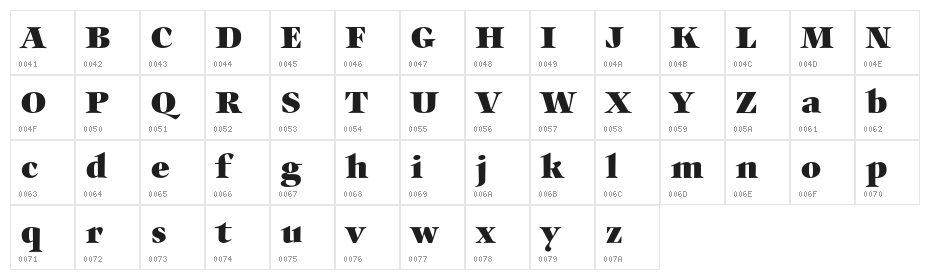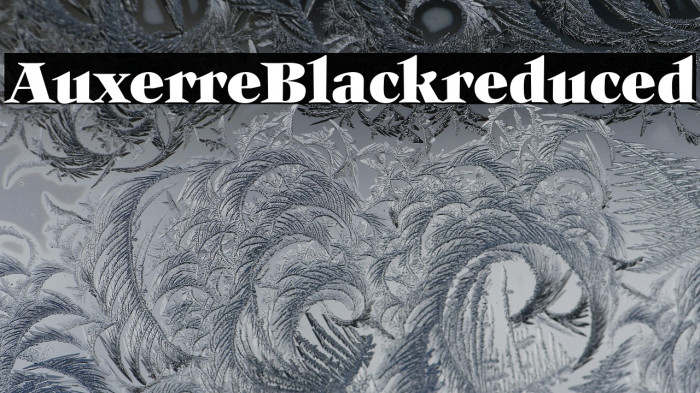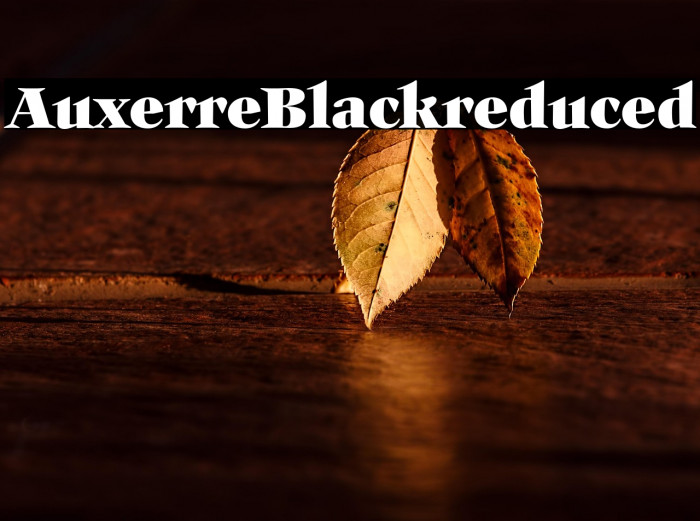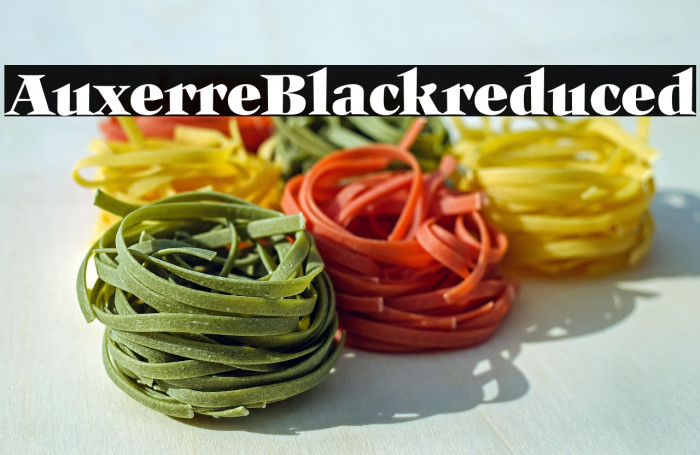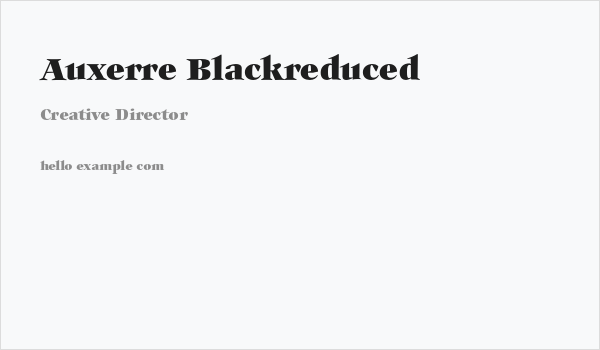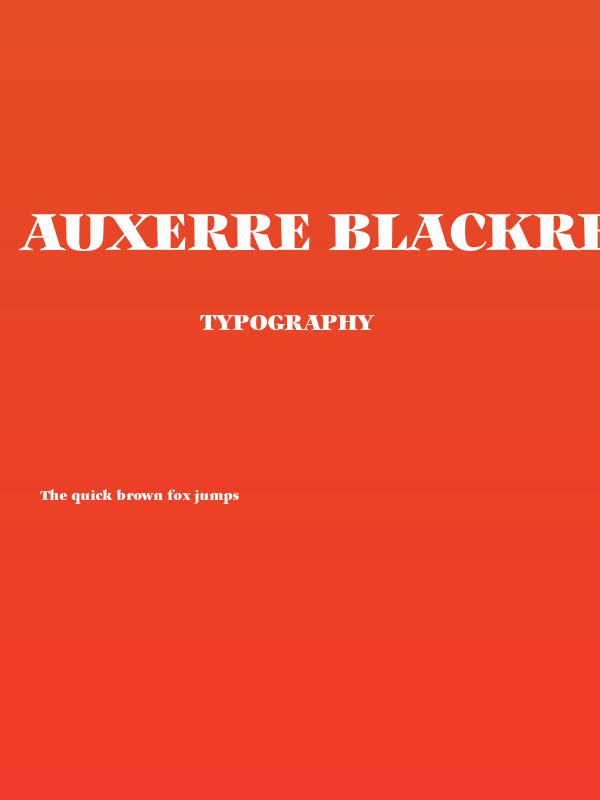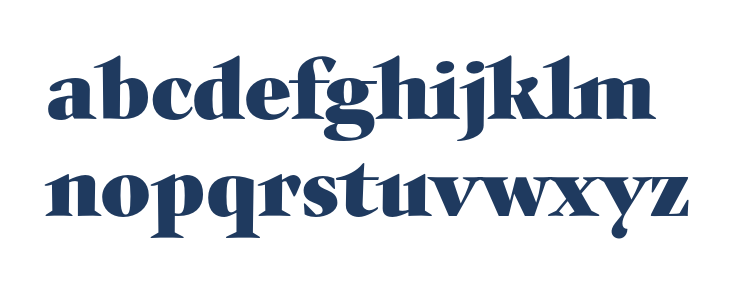
Auxerre-Blackreduced Font
Auxerre-Blackreduced Description
This font features a bold and striking design with strong, thick strokes that create a commanding presence. The characters are sharply defined with a high contrast between thick and thin lines, giving it a dramatic and impactful appearance. The serifs are pronounced and add a touch of elegance to the overall style. The uppercase letters are particularly bold, while the lowercase letters maintain a consistent weight, ensuring readability. The font's design is reminiscent of traditional serif styles but with a modern twist, making it suitable for a variety of applications where a bold statement is needed.